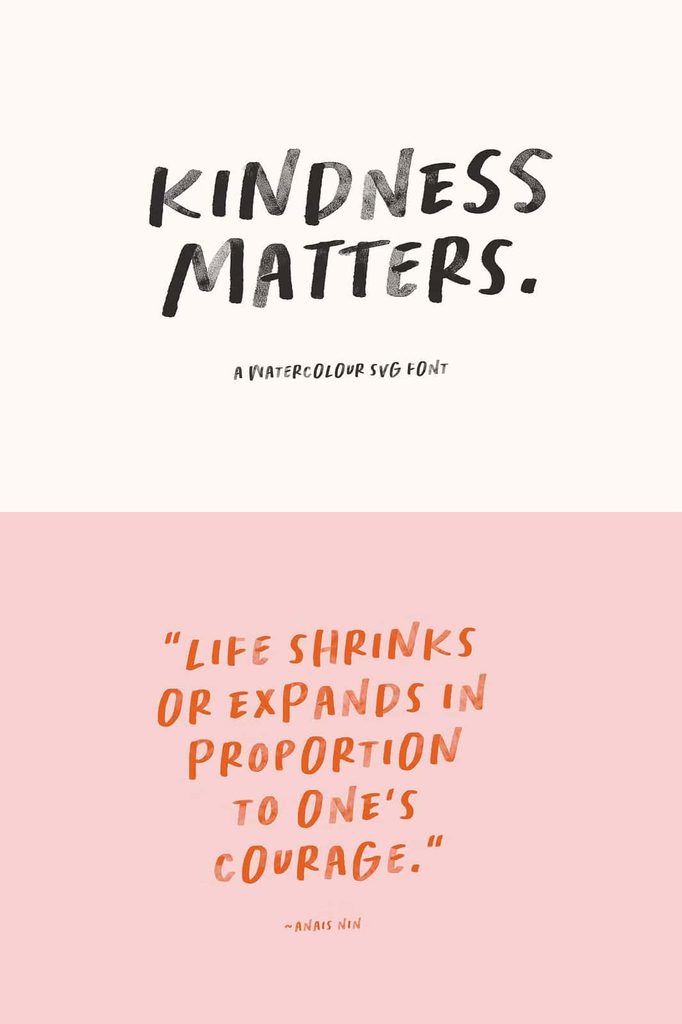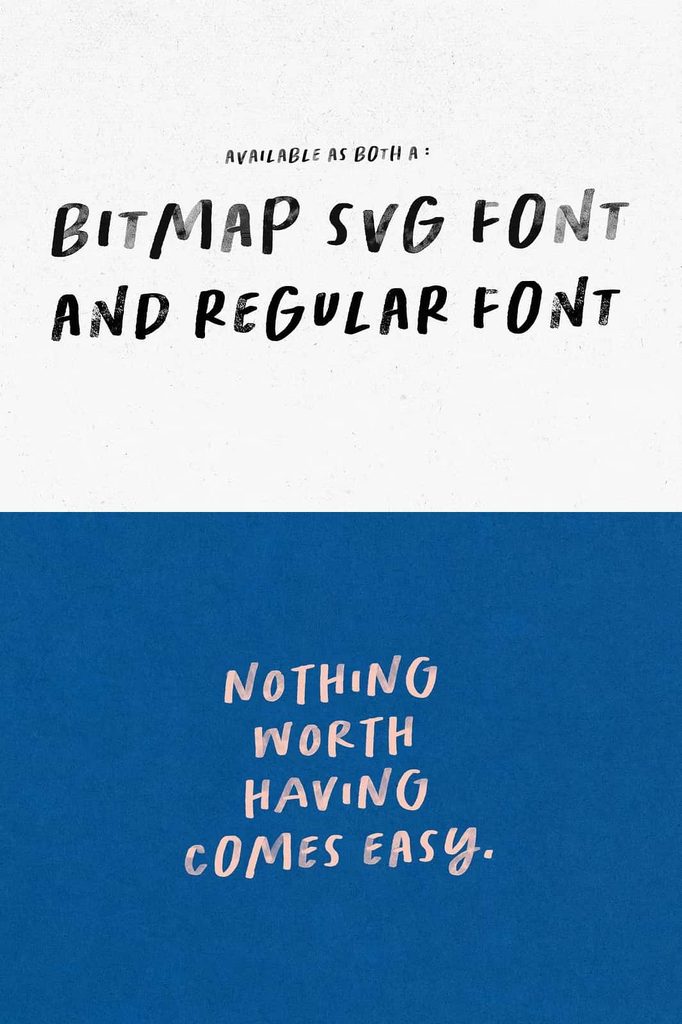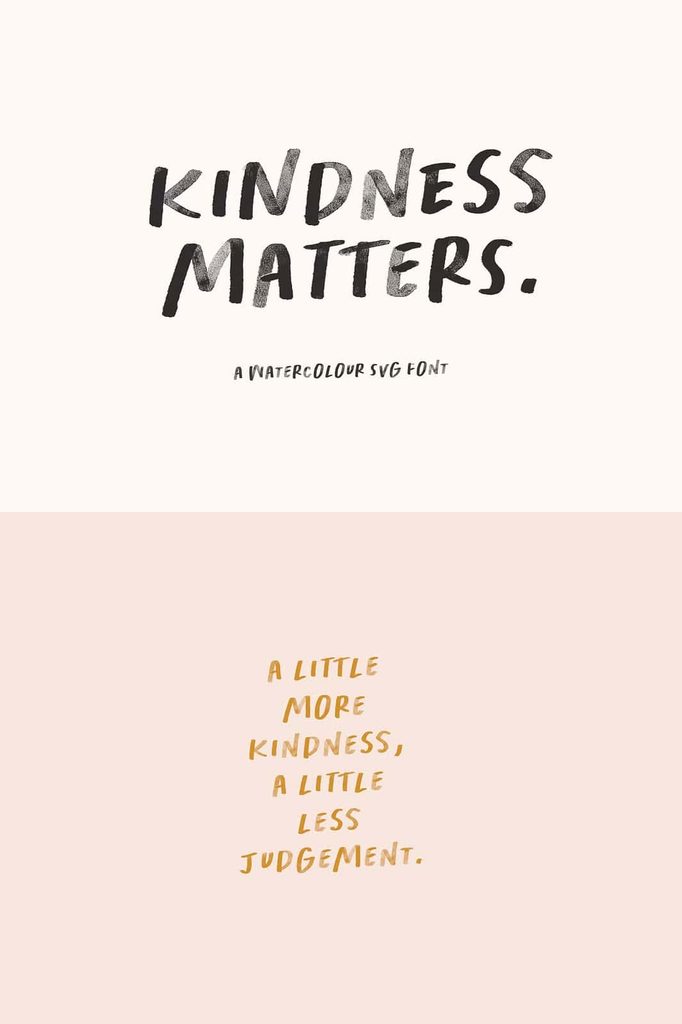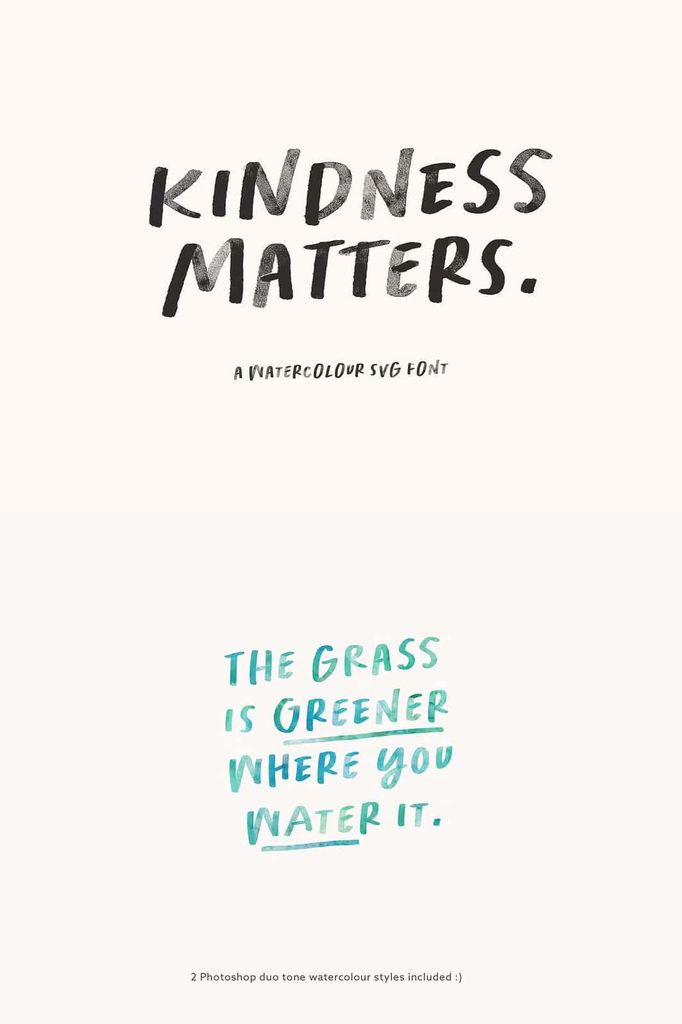
Kindness Matters SVG Font – Quirky All-Caps Watercolor Typeface
Kindness Matters is a playful and distinctive all-caps SVG font that brings the warmth of handmade lettering directly into your creative projects. Designed with a built-in watercolor texture, this font creates an authentic painted appearance that feels natural, artistic, and full of personality. Instead of relying on a plain digital finish, Kindness Matters adds visible texture to your typography, helping every word look as though it was carefully painted by hand.
With its quirky character and expressive watercolor effect, Kindness Matters gives designers an easy way to create artwork that feels friendly, cheerful, creative, and personal. The all-caps construction makes your messages highly visible, while the textured finish adds an artistic touch that works especially well for inspirational quotes, posters, flyers, social media graphics, invitations, stationery, and handmade-inspired designs.
A Quirky Font with Handmade Personality
Kindness Matters stands apart from conventional display fonts by combining bold lettering with an authentic watercolor texture. The quirky letterforms give your words an energetic and approachable appearance, making the font ideal for designs that need personality rather than a formal or corporate tone.
The all-caps format creates a strong visual presence and helps important messages immediately capture attention. Whether you are designing a short inspirational phrase or a longer decorative headline, Kindness Matters can transform ordinary text into a central design element.
Its handmade-inspired appearance also works beautifully with creative layouts. Pair the font with watercolor illustrations, painted backgrounds, hand-drawn elements, organic shapes, or subtle paper textures to build a cohesive artistic style. You can also place it alongside clean typography to create an attractive contrast between handcrafted and modern design.
Realistic Watercolor Texture
One of the most appealing features of the Kindness Matters SVG Font is its built-in watercolor texture. The texture creates a realistic painted effect that gives the letters depth and visual interest. Instead of appearing perfectly smooth and digitally constructed, the characters reproduce the imperfect qualities associated with traditional watercolor lettering.
This texture can help you create designs that feel more tactile and authentic. Use it when you want your typography to resemble painted artwork without manually adding texture to every individual letter. The integrated effect saves time while allowing you to achieve a more artistic result.
The watercolor appearance works particularly well for inspirational artwork, creative stationery, children’s designs, handmade product branding, craft projects, and lifestyle graphics. It can also add warmth to digital compositions that would otherwise feel too clean or mechanical.
Perfect for Quotes and Inspirational Designs
Kindness Matters is an excellent choice for creating quote graphics. Its expressive appearance allows meaningful words to become the focus of your composition. Use the font for motivational messages, positive affirmations, friendship quotes, kindness campaigns, classroom artwork, or personal social media posts.
The watercolor texture gives each quote an artistic quality that can make the final design feel more memorable. Combine the typography with soft illustrations, botanical elements, painted shapes, or simple backgrounds to create a warm and welcoming composition.
Create Eye-Catching Quote Graphics
When designing a quote, use the all-caps characters to establish a strong hierarchy. Place the most important words in Kindness Matters and combine them with a simpler complementary font for supporting text. This technique allows the quirky watercolor lettering to command attention while maintaining a balanced and readable layout.
Great for Posters and Flyers
The bold all-caps design makes Kindness Matters especially useful for posters and flyers. Large lettering can communicate a message quickly, while the watercolor texture gives the design an approachable and creative appearance.
Use Kindness Matters for event announcements, community campaigns, school projects, workshops, creative markets, inspirational events, charity promotions, and promotional materials. Its playful personality can help your message feel more inviting and less generic.
For poster designs, experiment with large-scale typography and generous spacing. Add painted backgrounds, illustrations, or decorative elements to reinforce the handcrafted aesthetic. The font can serve as the primary headline while supporting information uses a clean sans serif or serif typeface for easy reading.
Enhance Social Media Graphics
Social media designs benefit from typography that communicates a message quickly and visually. Kindness Matters provides exactly that combination. Its strong all-caps structure immediately attracts attention, while the watercolor texture gives your graphics a distinctive handmade appearance.
If you want a display font that feels creative, approachable, handcrafted, and visually distinctive, Kindness Matters offers an excellent way to make your words stand out.